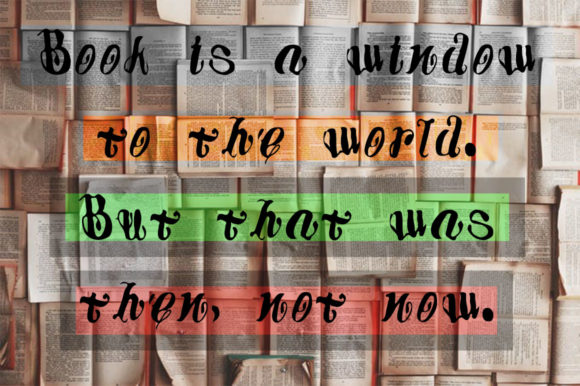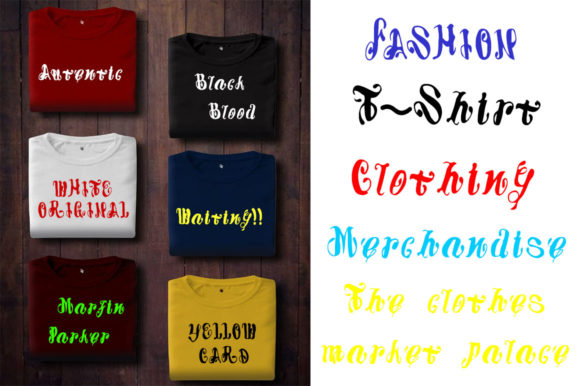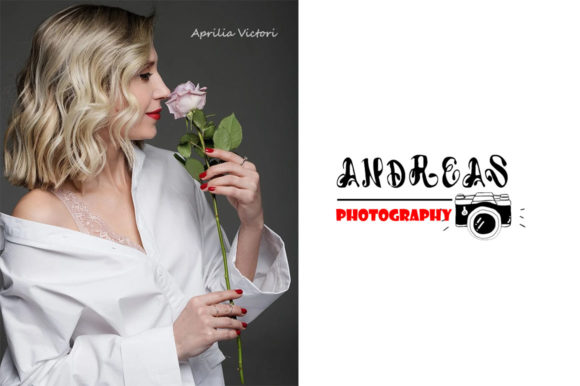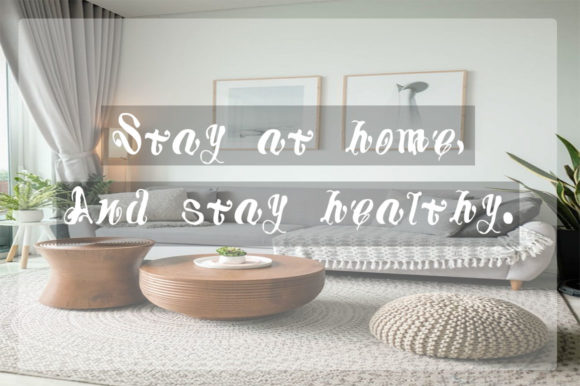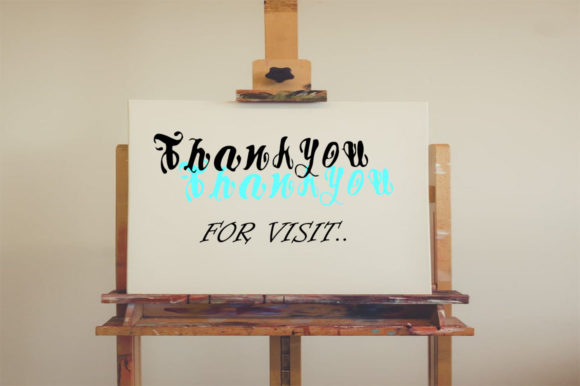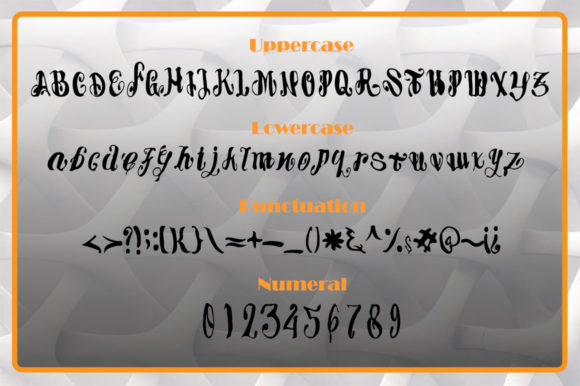
Aston Villa Font: Elevate Your Designs with Luxury and Sophistication
In the world of typography, fonts play a crucial role in conveying the tone and personality of a design project. For designers and crafters looking to add a touch of luxury and sophistication to their work, the Aston Villa font is an excellent choice. This incredibly stylish and assertive display font is designed to make a statement, and in this article, we’ll explore its features, benefits, and uses.
What is Aston Villa Font?
Aston Villa is a premium display font that exudes elegance and refinement. Its sleek lines, precise curves, and carefully crafted letterforms make it perfect for high-end design projects. Whether you’re working on a logo, branding materials, or marketing collateral, this font is sure to impress. With its unique blend of modernity and classic sophistication, Aston Villa is an excellent addition to any designer’s font library.
Key Features of Aston Villa Font
- Stylish and Assertive: Aston Villa’s bold and confident design makes it perfect for headlines, titles, and other display text.
- Luxury Appeal: The font’s sleek and refined aesthetic adds a touch of luxury to any design project.
- Highly Versatile: Aston Villa can be used in a variety of design contexts, from logos and branding to packaging and marketing materials.
- Easily Readable: Despite its bold design, Aston Villa remains highly legible, making it perfect for use in a range of design applications.
Benefits of Using Aston Villa Font
So why choose Aston Villa font for your design projects? Here are just a few benefits of using this exceptional font:
- Stand Out from the Crowd: With Aston Villa, you can create designs that are truly unique and eye-catching.
- Convey Luxury and Sophistication: This font is perfect for designers who want to convey a sense of high-end quality and refinement.
- Easily Pair with Other Fonts: Aston Villa pairs well with a range of other fonts, making it easy to create harmonious and effective typographic combinations.
Who Can Benefit from Aston Villa Font?
Aston Villa font is perfect for a range of designers and crafters, including:
- Graphic Designers: Whether you’re working on logos, branding materials, or marketing collateral, Aston Villa is an excellent choice.
- Logotype Designers: This font is perfect for designers who specialize in creating custom logotypes and wordmarks.
- Crafters and Makers: If you’re creating handmade products or DIY crafts, Aston Villa can add a touch of luxury and sophistication to your designs.
How to Use Aston Villa Font
Using Aston Villa font is easy! Here are a few tips to get you started:
- Use it as a Display Font: Aston Villa is perfect for use in headlines, titles, and other display text.
- Pair it with Other Fonts: Experiment with pairing Aston Villa with other fonts to create unique and effective typographic combinations.
- Experiment with Colors and Textures: Don’t be afraid to get creative with colors and textures to add depth and interest to your designs.
In conclusion, Aston Villa font is an exceptional choice for designers and crafters looking to add a touch of luxury and sophistication to their work. With its stylish and assertive design, highly versatile nature, and ease of use, this font is sure to become a staple in any designer’s font library. So why wait? Download Aston Villa font today and start elevating your designs to new heights!
| Font Name | Asthon Villa Font |
| Author | syakaltype |